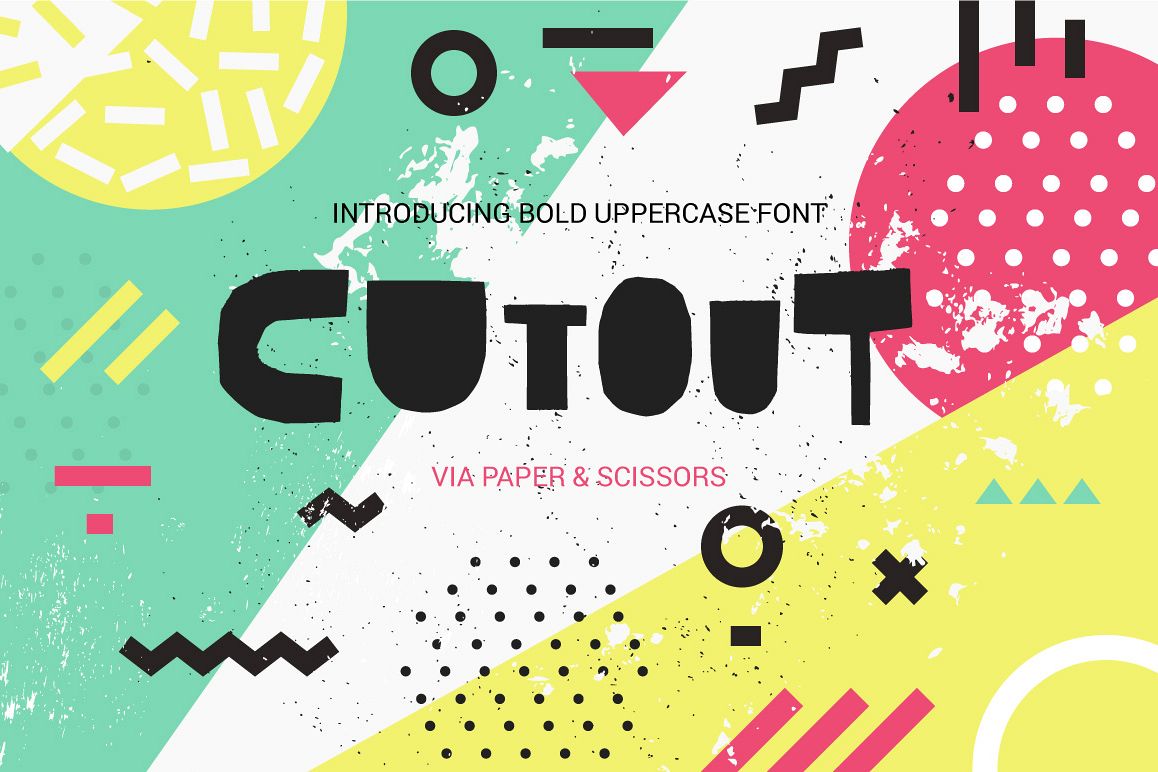
Cutout - bold uppercase font
Are you ready to have some fun? Then please meet my new font Cutout - all characters were literally cut out of paper with scissors. Cutout is an uppercase font and it comes with full set of alternates to choose from (PUA encoded, so you will be able to access all glyphs via any software you’re using).
Cutout is a bold font with organic edges and it will look great on posters, book covers, apparel design and anywhere where you need to draw attention to the words. You will get both TTF and OTF versions of the font.Cutout has a full language support of Western European, Central European, South Eastern languages
Cutout is a perfect font for:
• Posters & quotes
• Apparel design
• Branding and advertising
• Book covers and magazine pieces